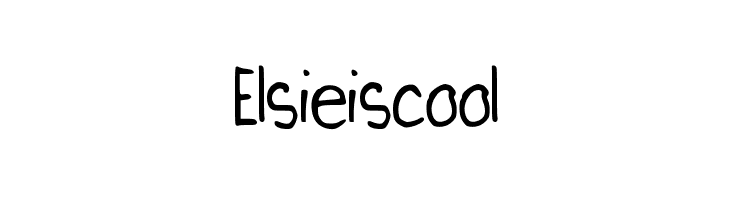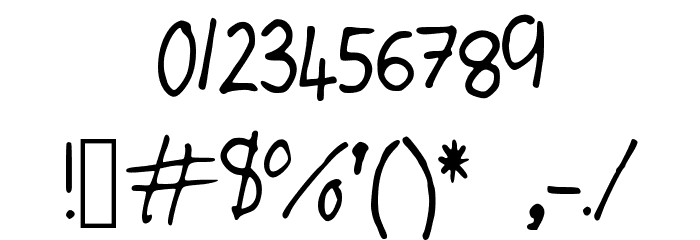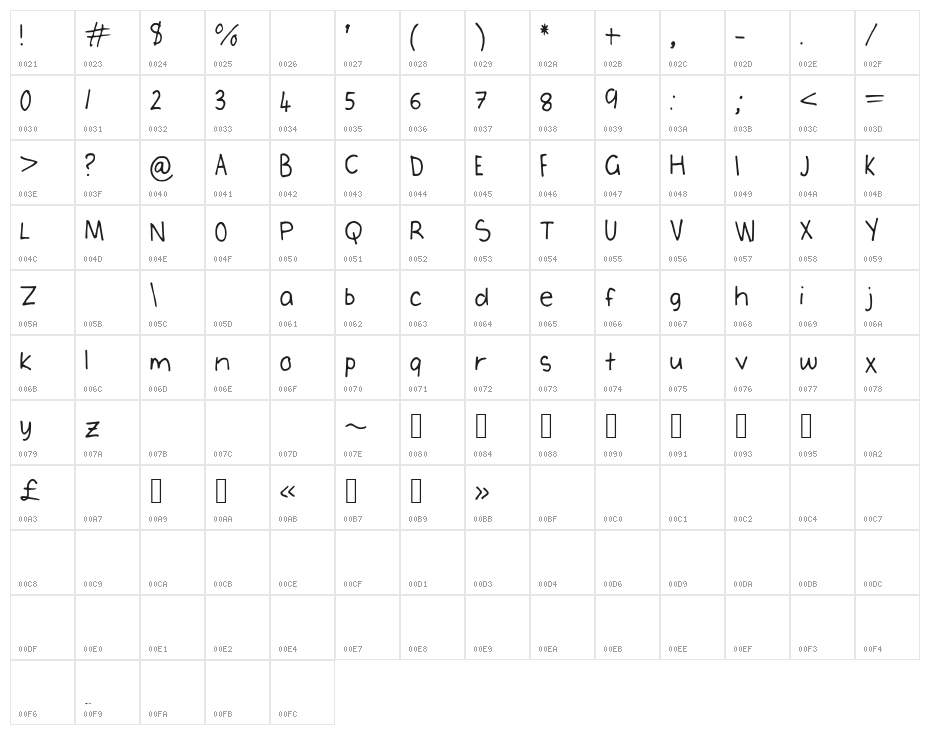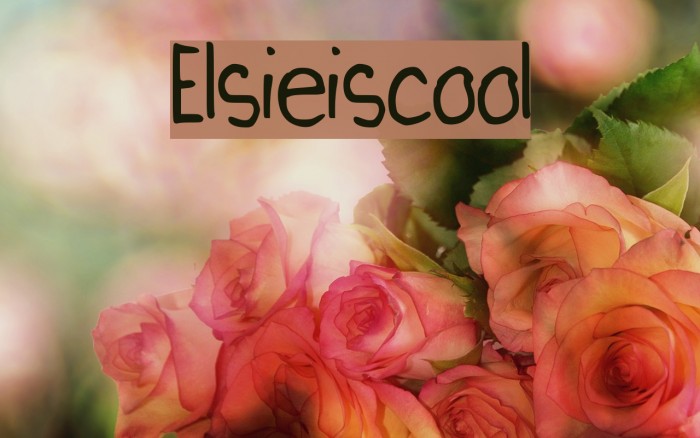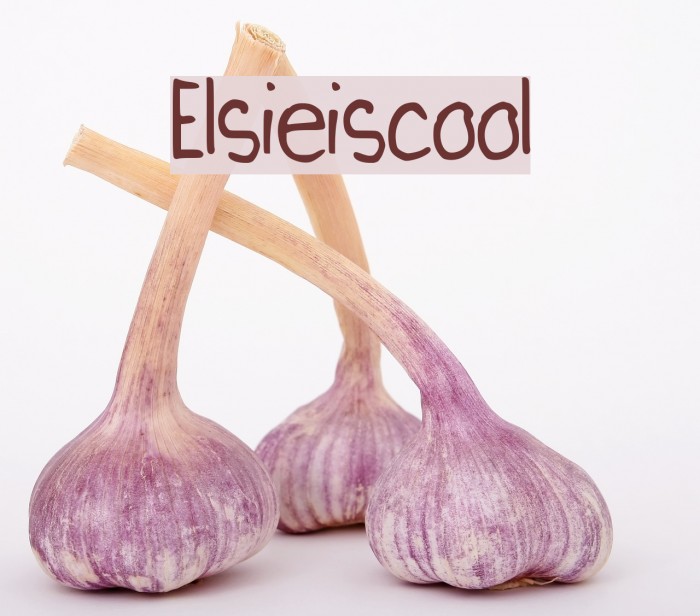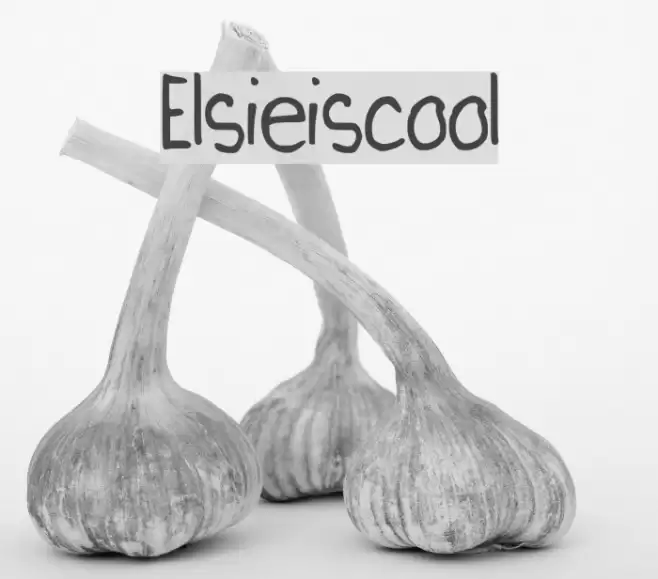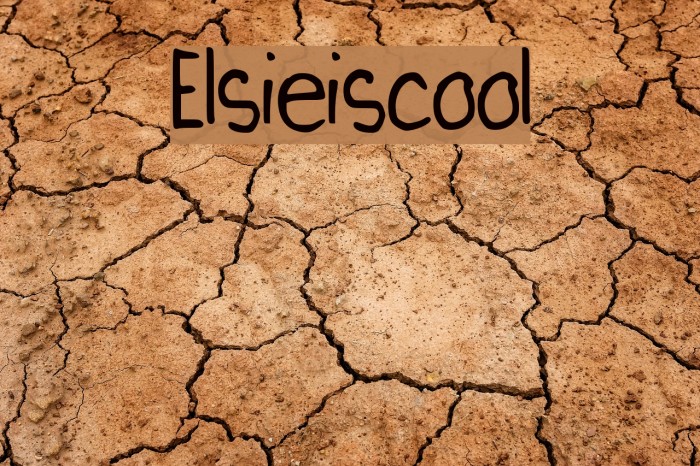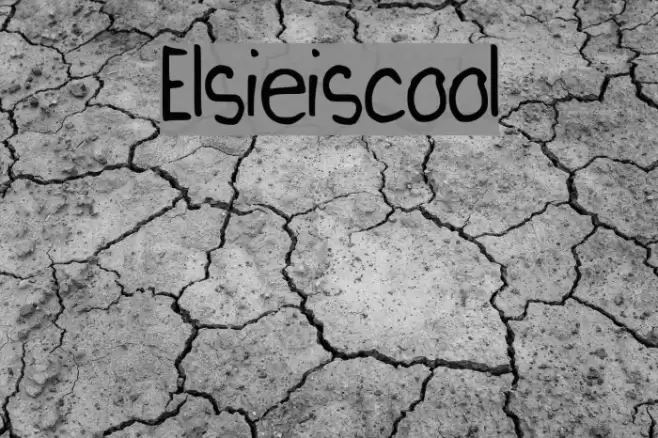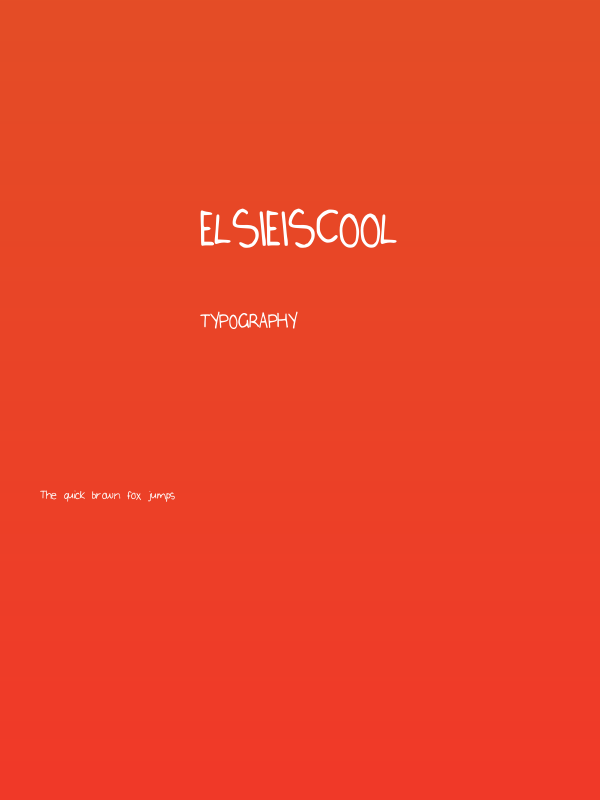
Elsieiscool Font
Elsieiscool Description
This playful and casual handwritten font features a friendly and approachable style. The letters are slightly irregular, giving it a personal touch that mimics natural handwriting. The strokes are smooth and rounded, with a consistent thickness that maintains readability while adding a whimsical charm. The font includes a full set of uppercase and lowercase letters, numbers, and a variety of special characters, making it versatile for various design needs. Its informal and relaxed appearance makes it ideal for projects that require a human touch.